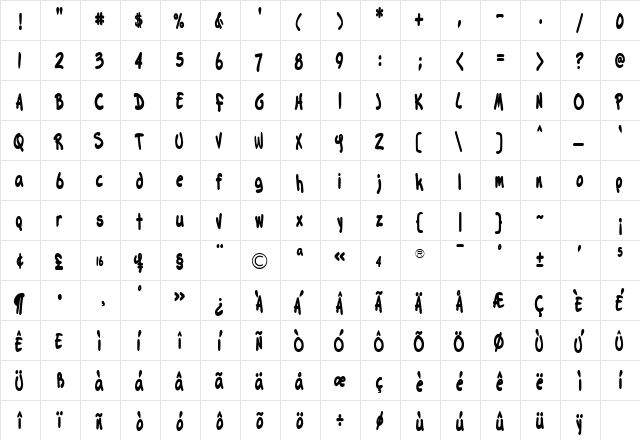
TFGary Regular Font Preview
TFGary Regular
Design Context for TFGary Typeface
TFGary is a composed and adaptable typeface that performs quietly and consistently across a wide range of design contexts.